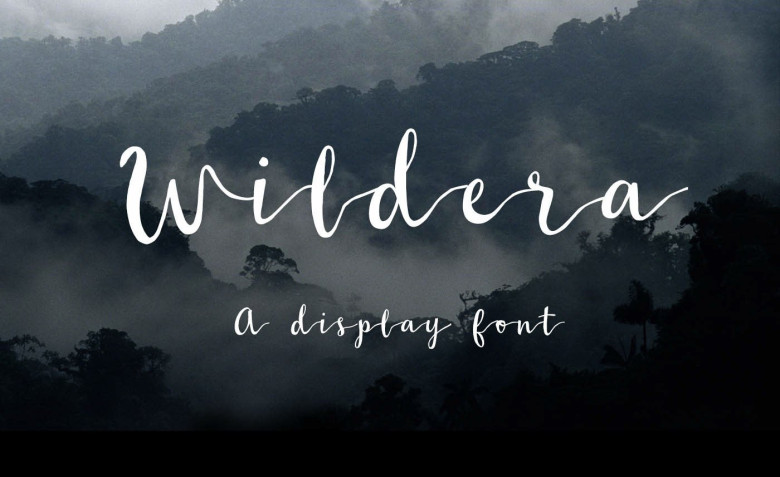
Wildera Font
Wildera is a free typeface inspired by my personal calligraphy work. With a ton of working and reworking, the final design includes connected characters, playful up-and-downs, and uneven edges. Hope you enjoy!